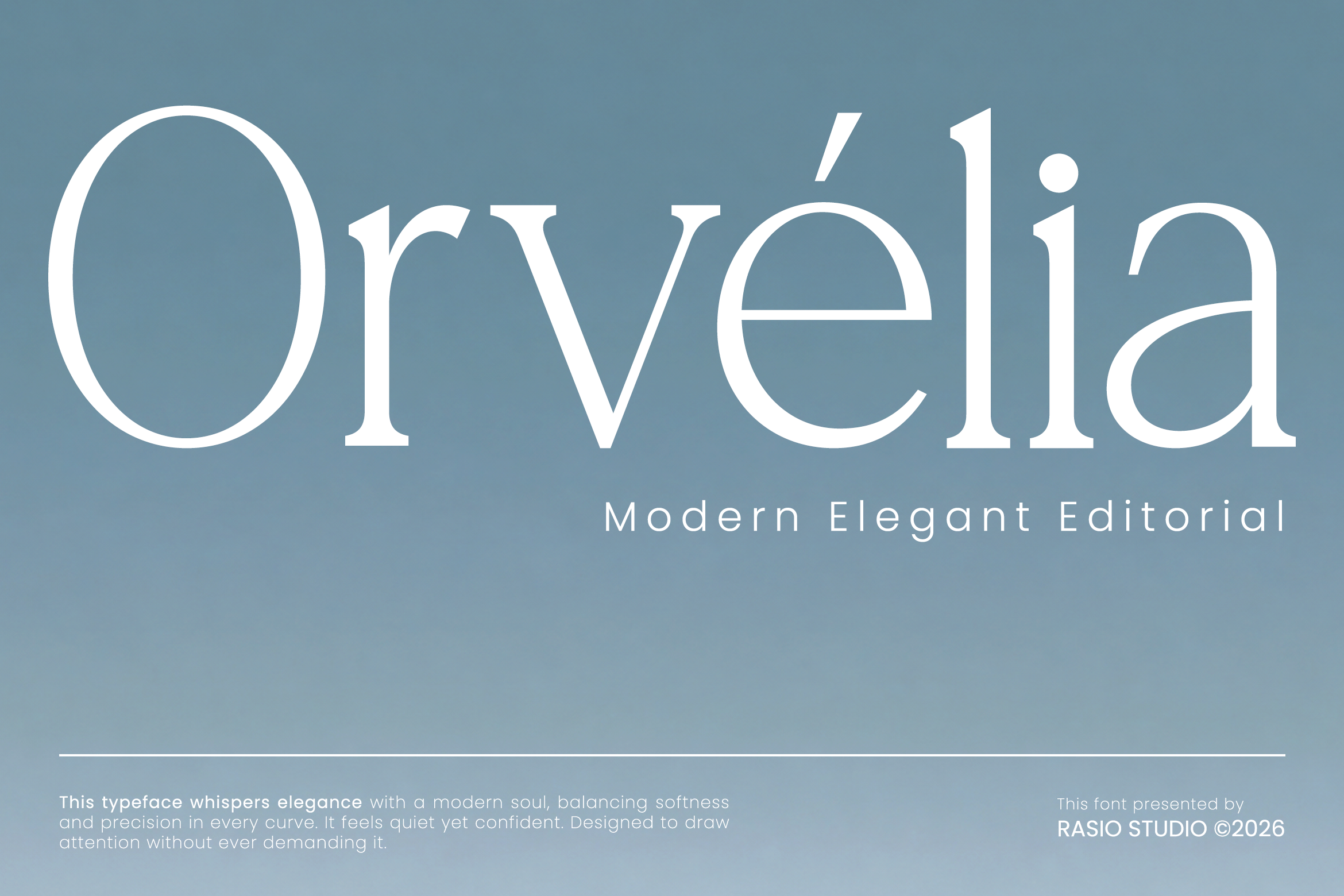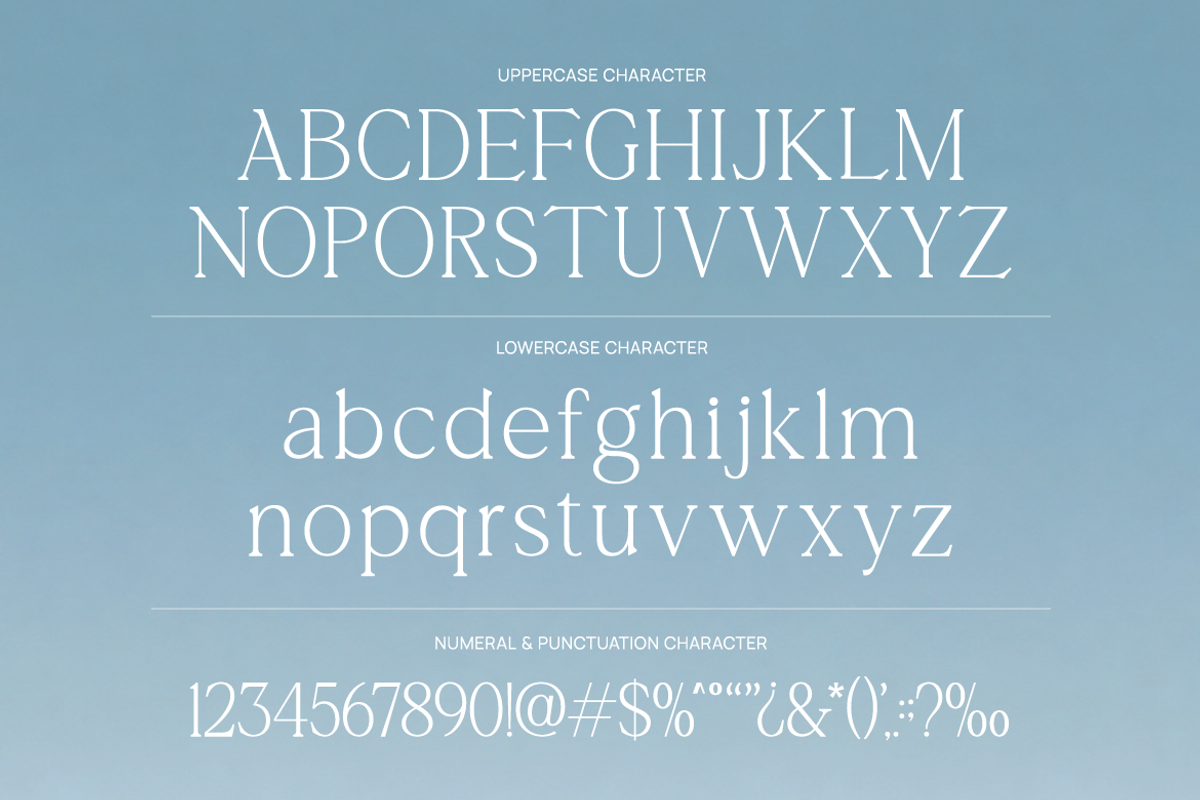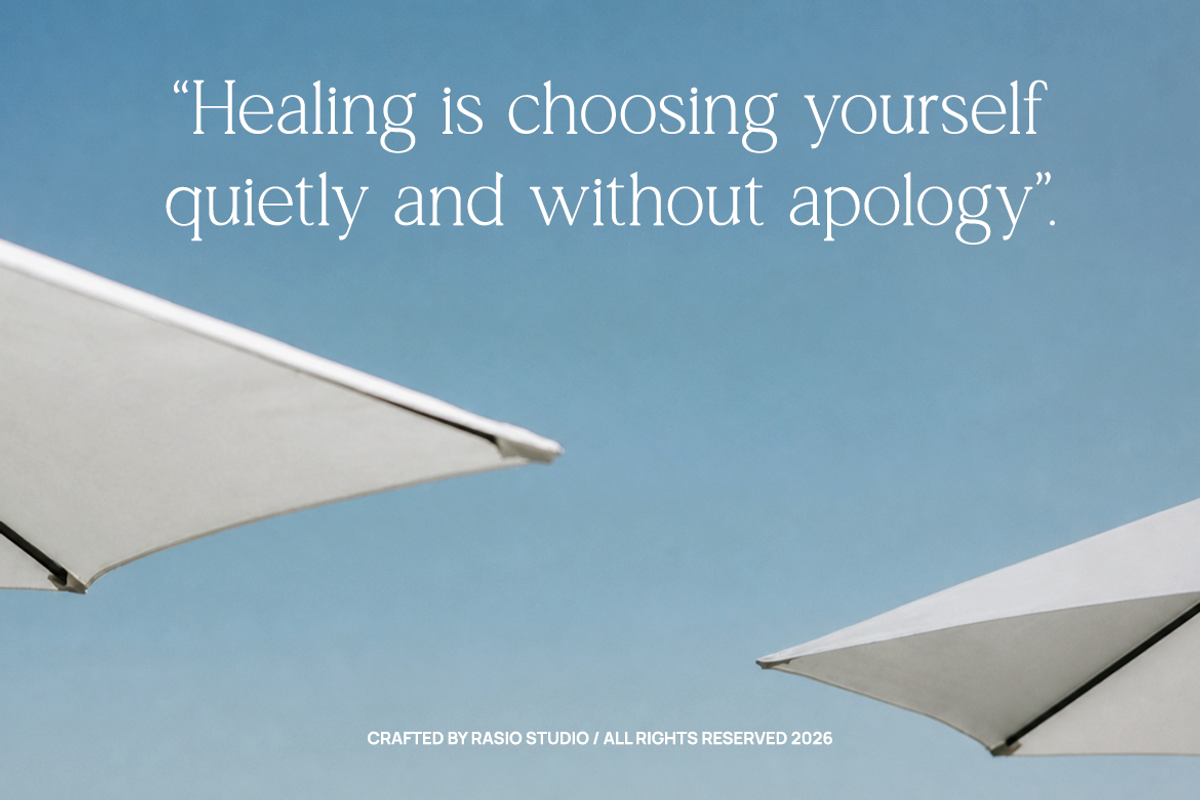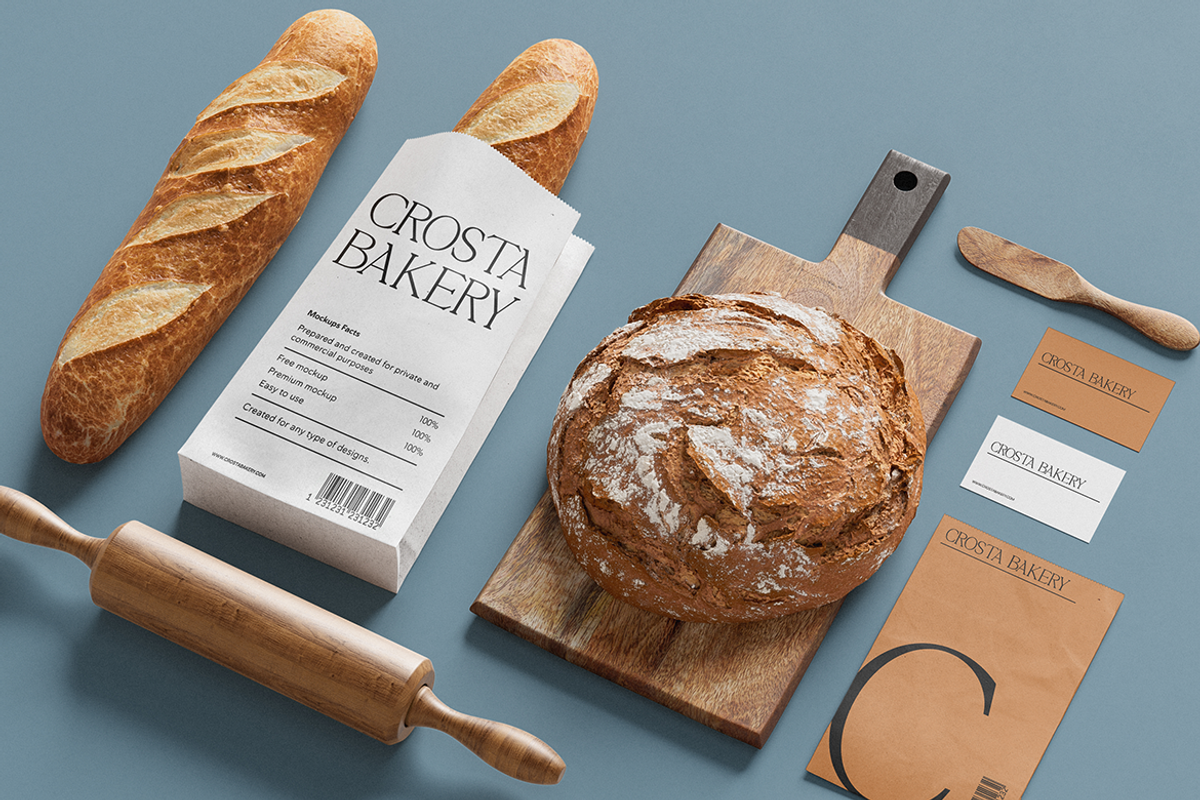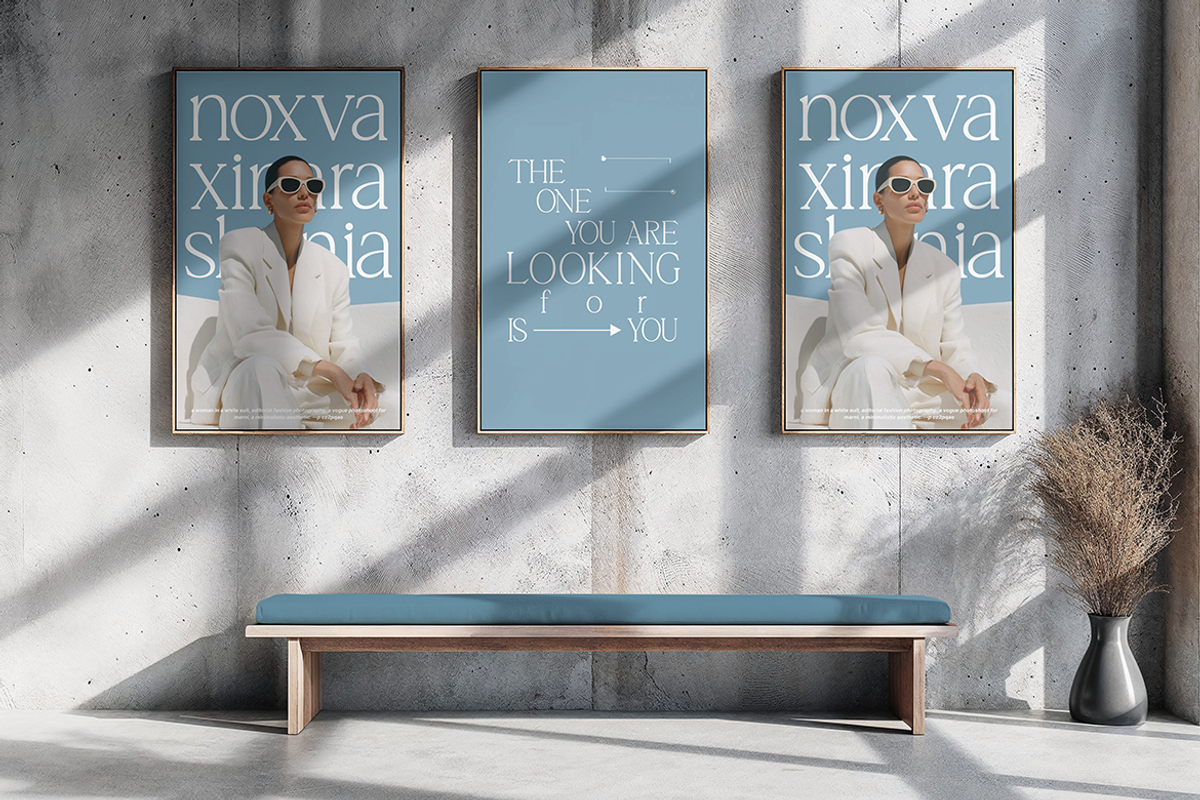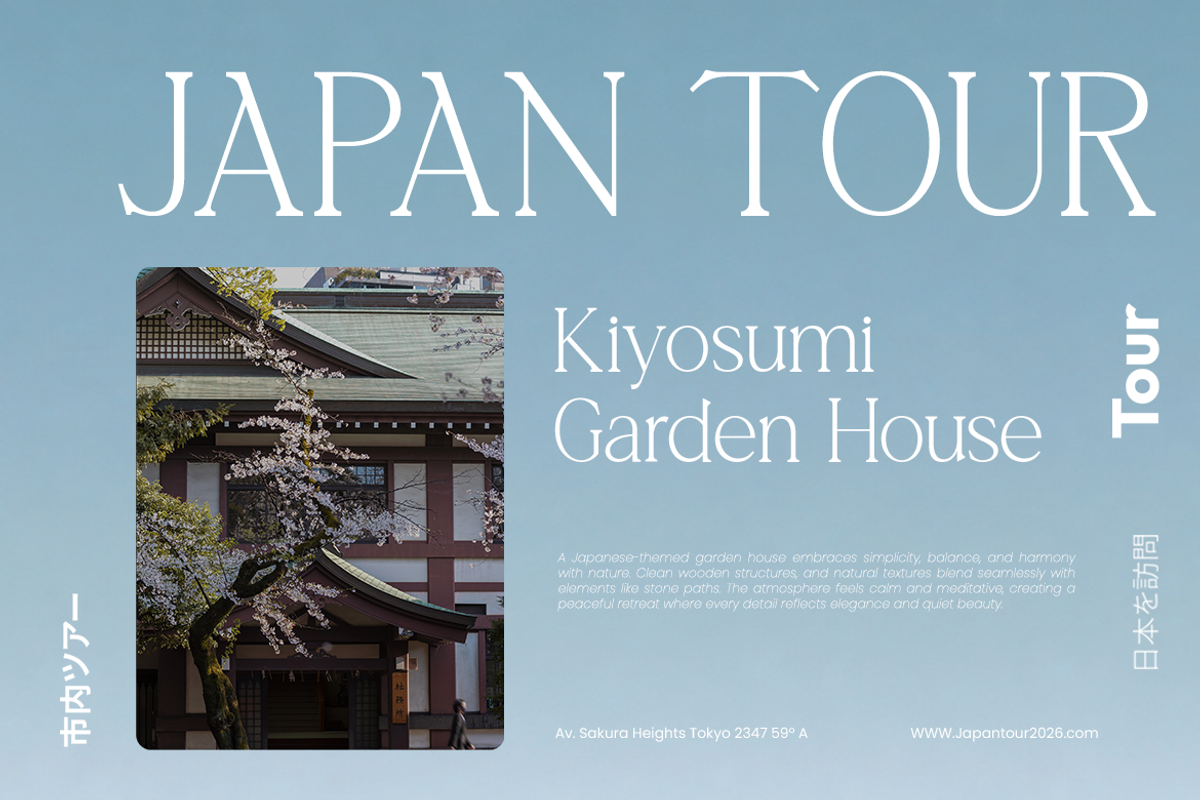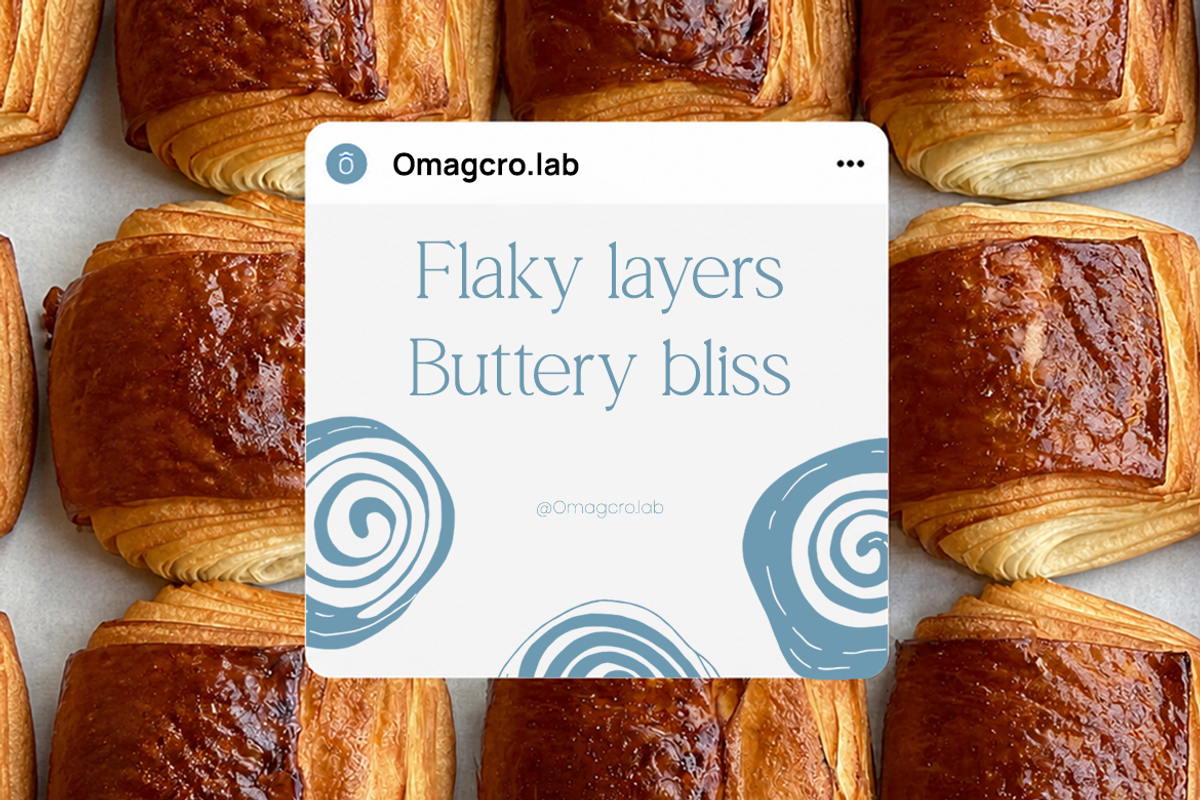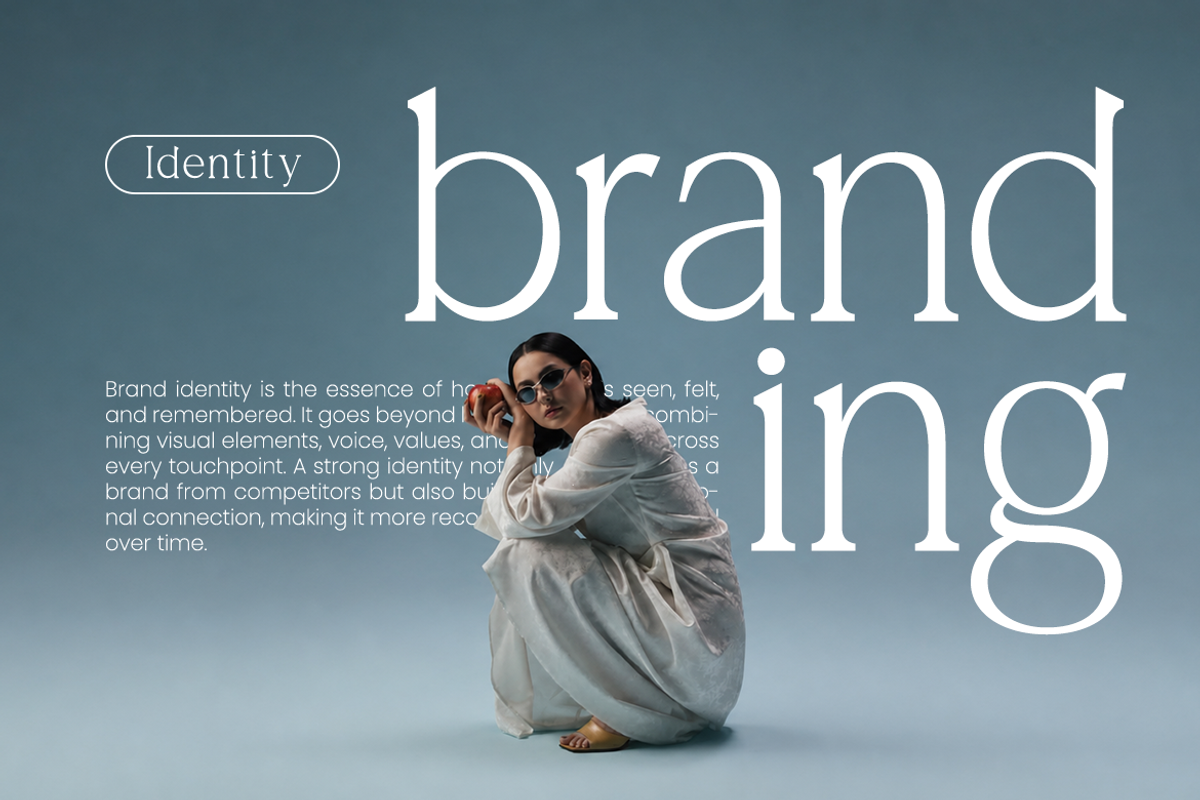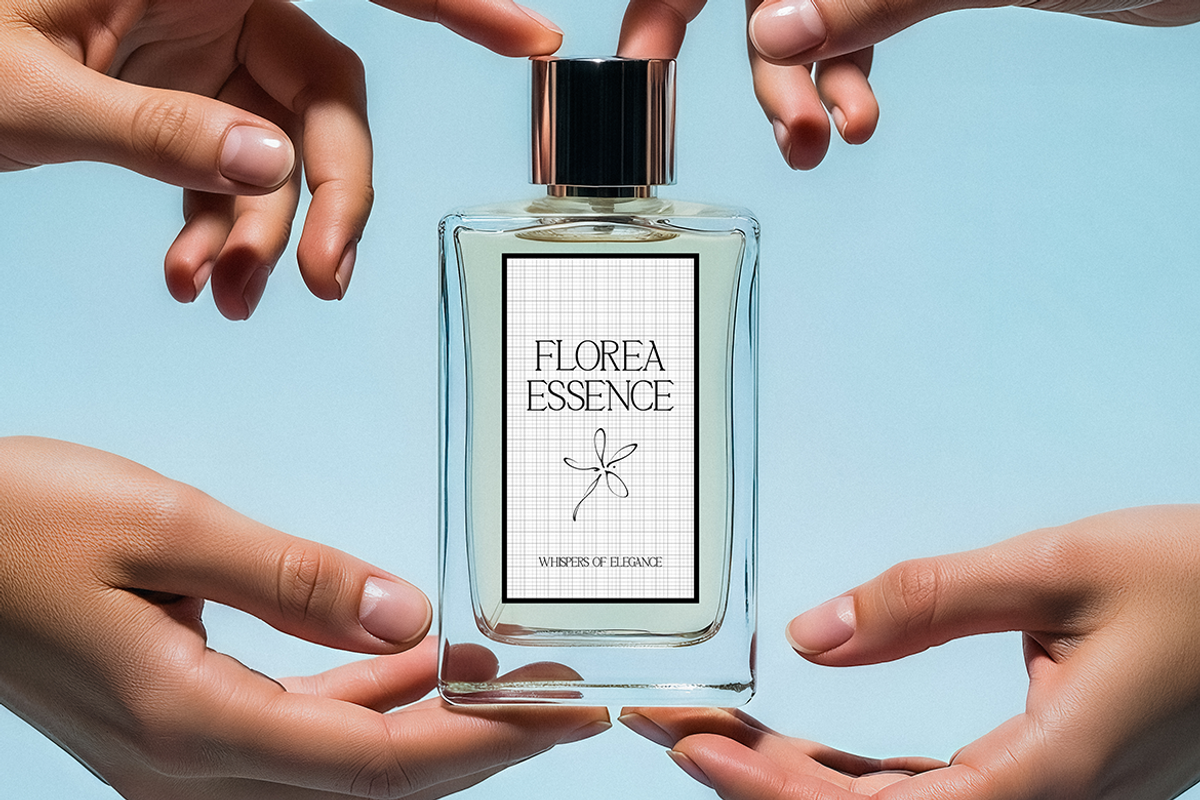
Orvelia Modern Editorial Font
Orvelia Modern Elegant Editorial Serif is a refined serif typeface crafted with graceful proportions, delicate curves, and high-contrast letterforms. The font includes uppercase, lowercase, numerals, and punctuation designed with a luxurious editorial aesthetic that blends timeless elegance with modern sophistication. Its thin strokes and stylish serif details create a soft, premium visual atmosphere suitable for fashion branding, magazine layouts, beauty campaigns, and luxury presentation designs.
Orvelia is highly relevant for luxury and editorial-focused projects that require elegance, softness, and modern sophistication. This typeface is perfect for fashion magazines, beauty branding, cosmetic packaging, jewelry promotions, wedding invitations, lifestyle blogs, luxury product campaigns, social media aesthetics, boutique identities, and elegant presentation layouts where refined typography becomes the main visual attraction.
Elegant high-contrast serif construction with refined editorial proportions
Delicate curves and tapered strokes for a graceful luxury appearance
Thin hairlines balanced with soft serif detailing for sophisticated readability
Classic modern serif structure inspired by timeless fashion typography
Spacious letter spacing creating an airy and premium visual rhythm
Luxury brand identity systems for fashion, beauty, and lifestyle businesses
Editorial magazines and sophisticated book layout designs
Wedding invitations and premium event stationery with elegant styling
Cosmetic packaging and product labels with refined luxury aesthetics
Social media templates and digital campaigns for modern feminine branding
Supports numerals, punctuation, and extensive symbol set
Bring timeless sophistication into your design with Orvelia Modern Editorial Serif Font